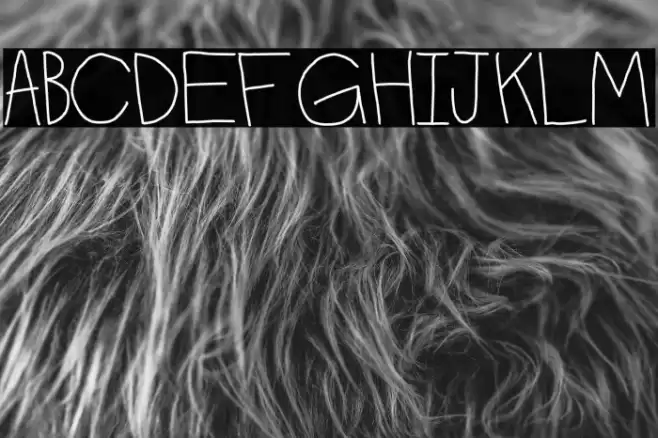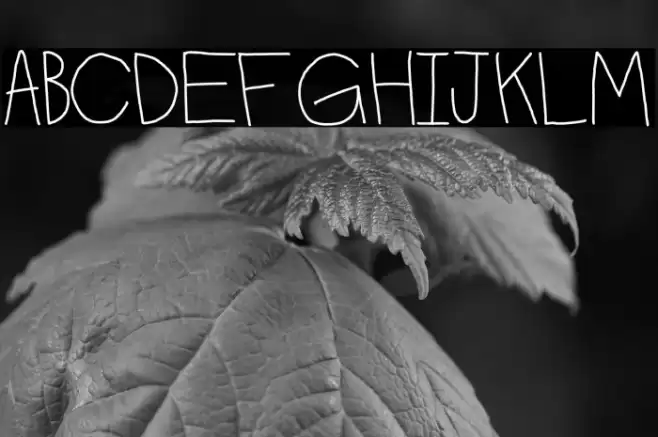
This font features a playful and informal handwritten style, characterized by its tall, narrow letters with a slightly uneven baseline that adds a whimsical touch. The uppercase letters are bold and prominent, while the lowercase letters maintain a consistent height, creating a harmonious balance. Numbers are clear and distinct, matching the playful nature of the alphabet. Special characters are creatively designed, maintaining the overall casual and friendly aesthetic. The font's unique personality makes it ideal for projects that require a personal, approachable feel.
A playful, handwritten font with tall, narrow letters and a whimsical style from Uncategorized fonts.
- Proposed Projects: Ideal for greeting cards, children's books, playful branding, and casual invitations.
- Overall Style: Casual, Playful
- Use Case: Headlines, Informal text, Creative projects